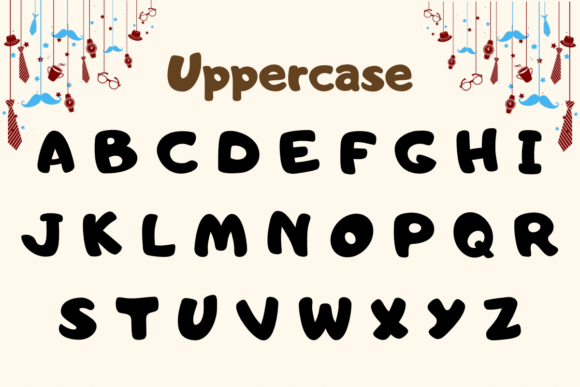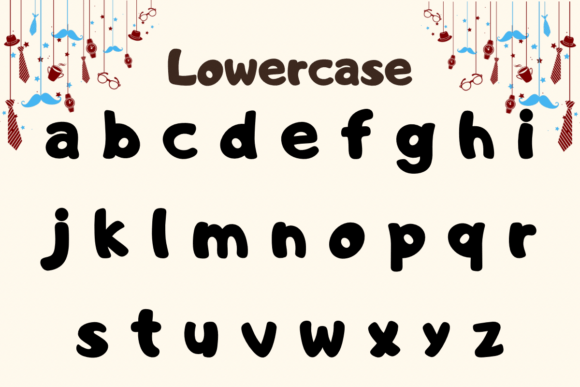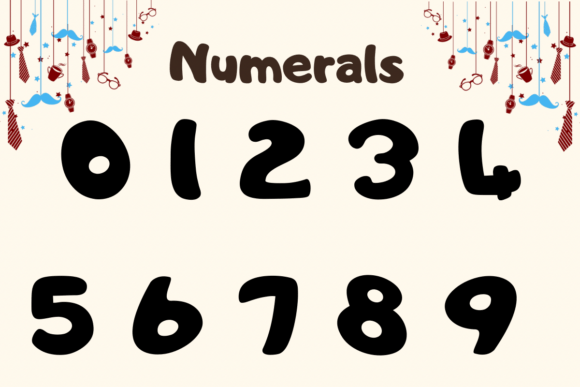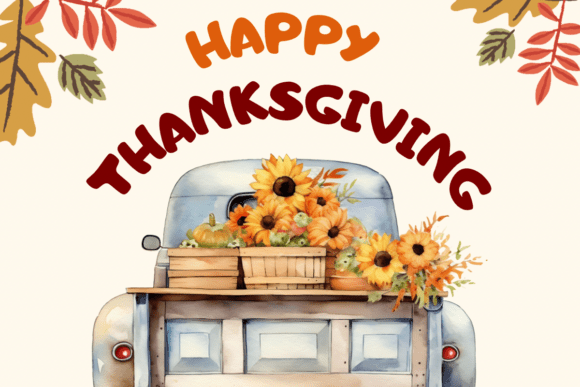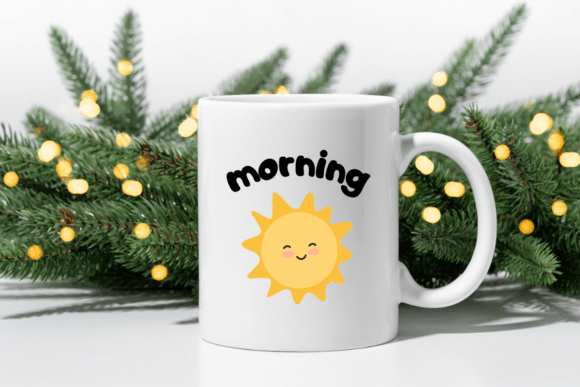
Introducing Father Day Font: The Perfect Addition to Your Dad-Themed Designs
Are you looking for a font that captures the essence of Father’s Day? Look no further than the Father Day Font, a playful and heartwarming display font designed to add charm and character to your dad-themed designs. With its chunky curves and friendly look, this font is perfect for creating eye-catching Father’s Day cards, family event posters, kids’ projects, and more.
A Font that Celebrates Dad with Wholesome Fun and Bold Personality
The Father Day Font is specifically crafted to bring a dose of wholesome fun and bold personality to your designs. Its chunky curves and friendly look make it an ideal choice for designers and crafters who want to create engaging and heartwarming content. Whether you’re designing a Father’s Day card, a family event poster, or a kids’ project, this font is sure to add a playful touch that will delight your audience.
The Father Day Font is versatile and can be used for a variety of design projects, including:
- Father’s Day cards: Create personalized and unique cards for dad with this charming font.
- Family event posters: Design eye-catching posters for family events, such as Father’s Day celebrations, with this font’s bold and playful personality.
- Kids’ projects: Add a touch of fun and whimsy to kids’ projects, such as school assignments or craft projects, with this font’s friendly look.
- Social media graphics: Use this font to create engaging social media graphics, such as Facebook posts or Instagram stories, to celebrate Father’s Day.
Key Features of the Father Day Font
The Father Day Font comes with several key features that make it an excellent choice for designers and crafters:
- Playful and heartwarming design: This font is designed to capture the essence of Father’s Day with its playful and heartwarming look.
- Chunky curves: The font’s chunky curves add a touch of whimsy and fun to your designs.
- Friendly look: The font’s friendly look makes it perfect for creating engaging and approachable designs.
- Bold personality: This font has a bold personality that is sure to grab the attention of your audience.
Why Choose the Father Day Font?
There are several reasons why you should choose the Father Day Font for your dad-themed designs:
- Unique and eye-catching: This font is unique and eye-catching, making it perfect for creating designs that stand out.
- Easy to read: The font is easy to read, making it perfect for designs that require a clear and concise message.
- Versatile: This font is versatile and can be used for a variety of design projects.
- High-quality: The Father Day Font is a high-quality font that is designed to deliver exceptional results.
Tips for Using the Father Day Font
Here are some tips for using the Father Day Font:
- Use it with bright colors: This font looks great with bright colors, so don’t be afraid to experiment with different color combinations.
- Pair it with simple designs: The Father Day Font works best with simple designs, so try pairing it with clean and minimalist backgrounds.
- Experiment with different sizes: This font looks great in different sizes, so experiment with different sizes to find the one that works best for your design.
The Father Day Font is a playful and heartwarming display font that is perfect for celebrating dad-themed designs with charm and character. With its chunky curves and friendly look, this font is ideal for creating eye-catching Father’s Day cards, family event posters, kids’ projects, and more. Whether you’re a designer or crafter, this font is sure to add a touch of wholesome fun and bold personality to your designs.